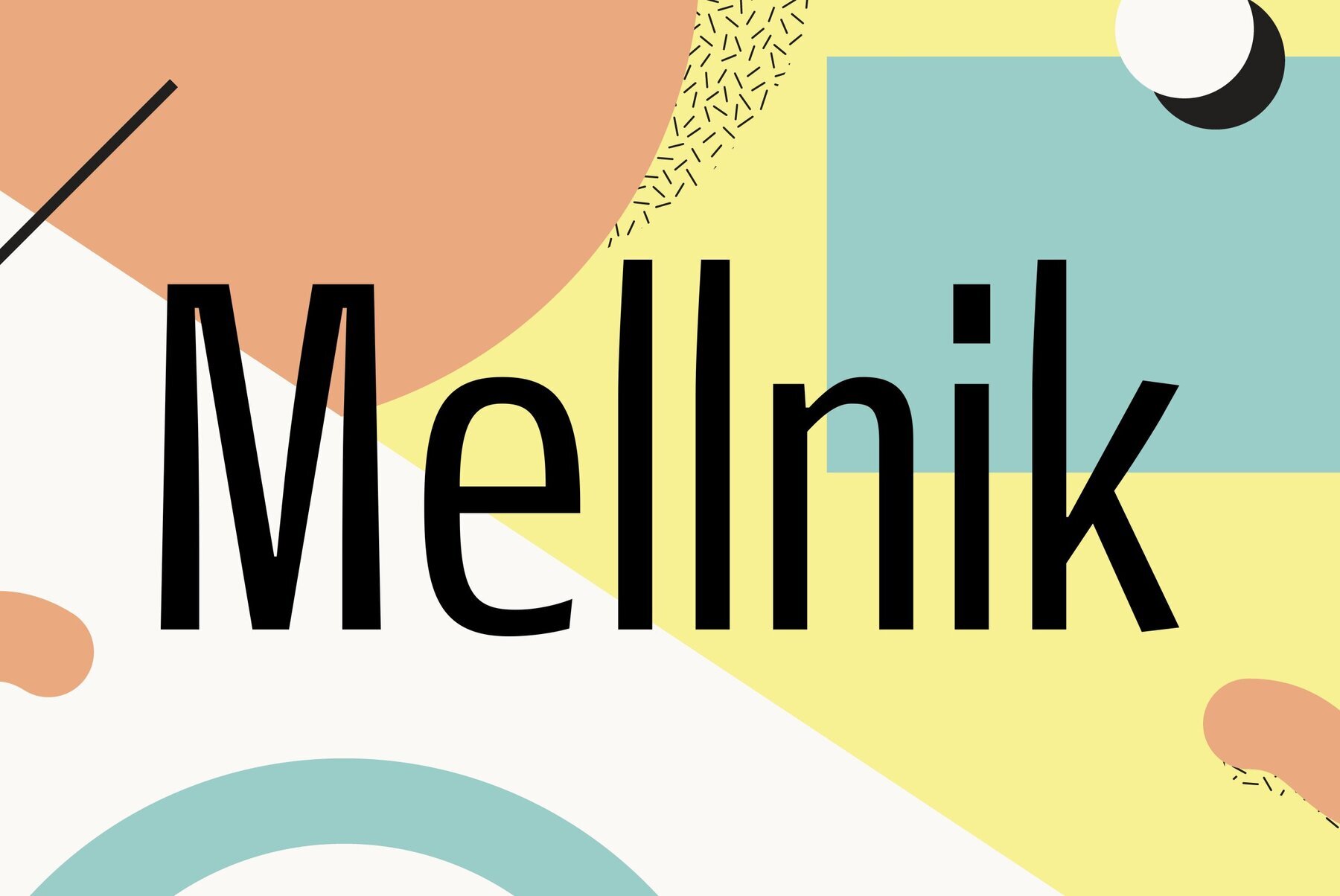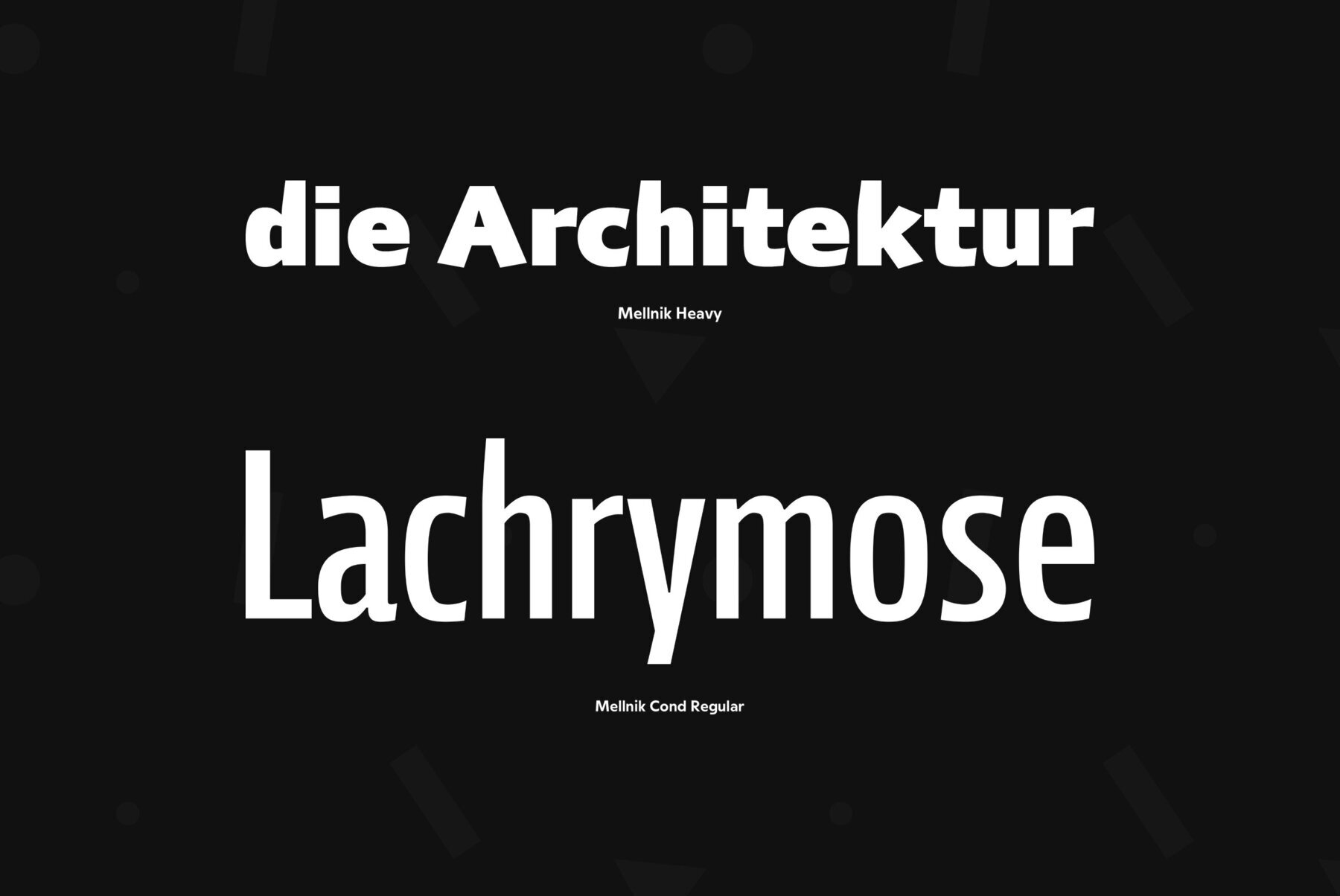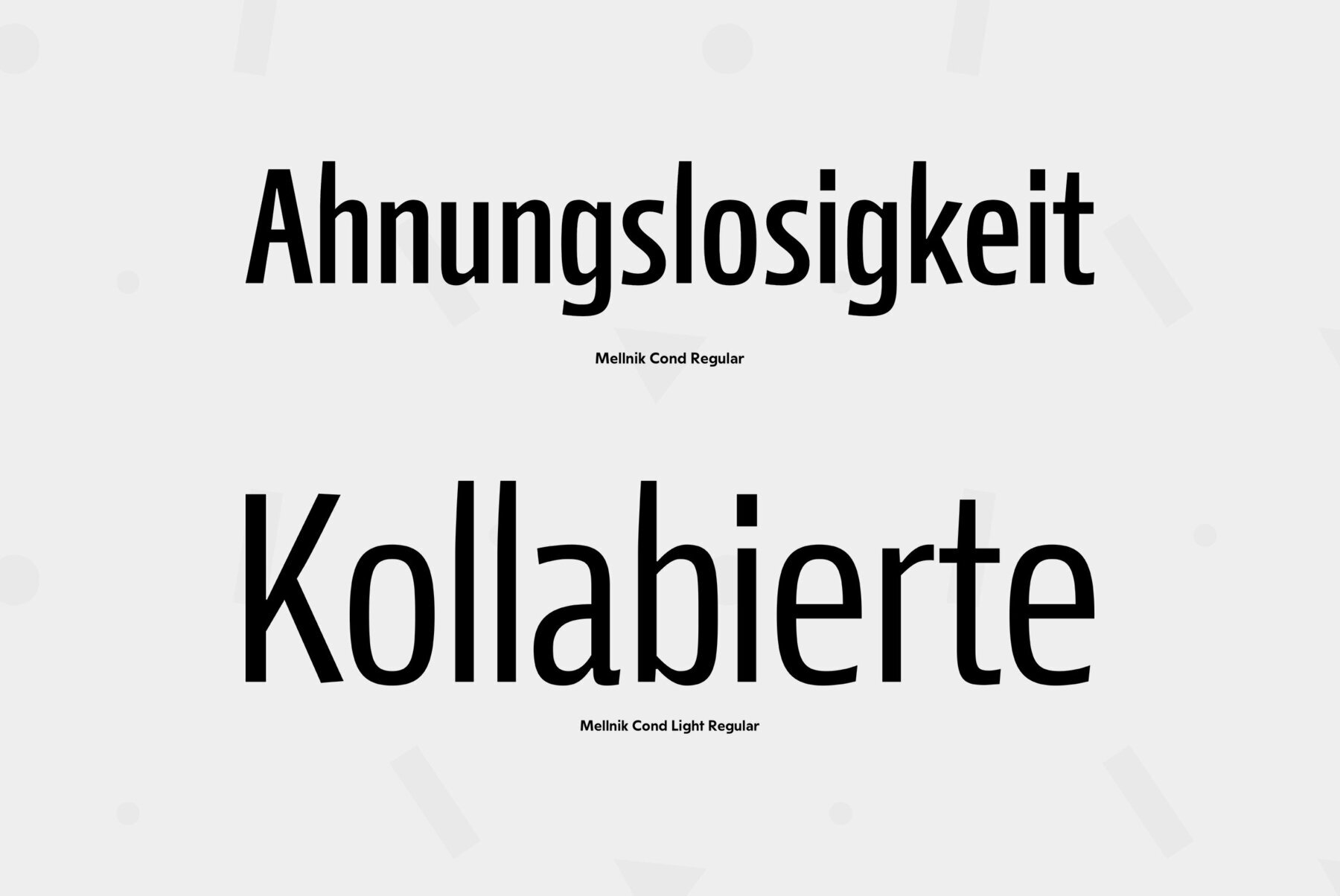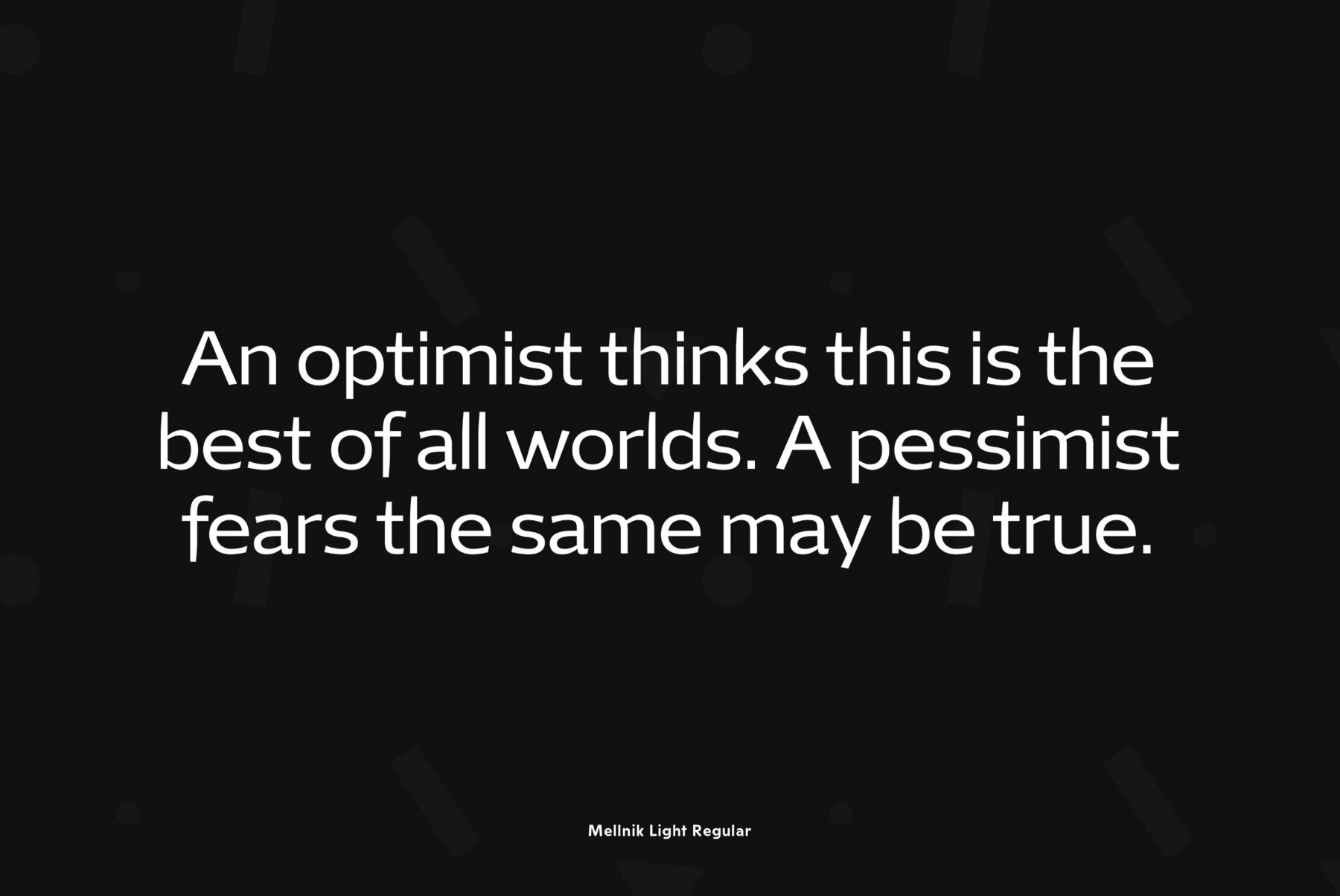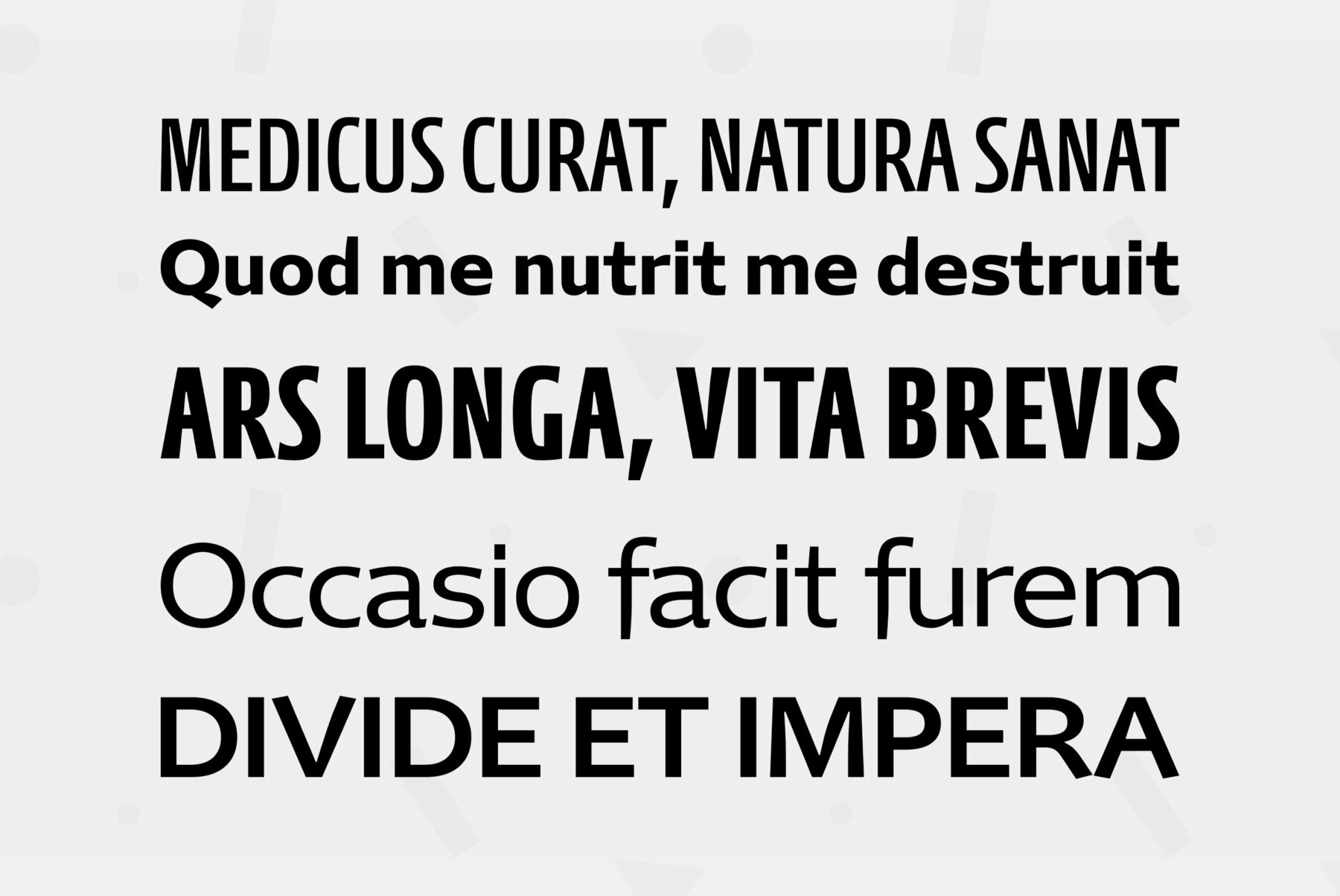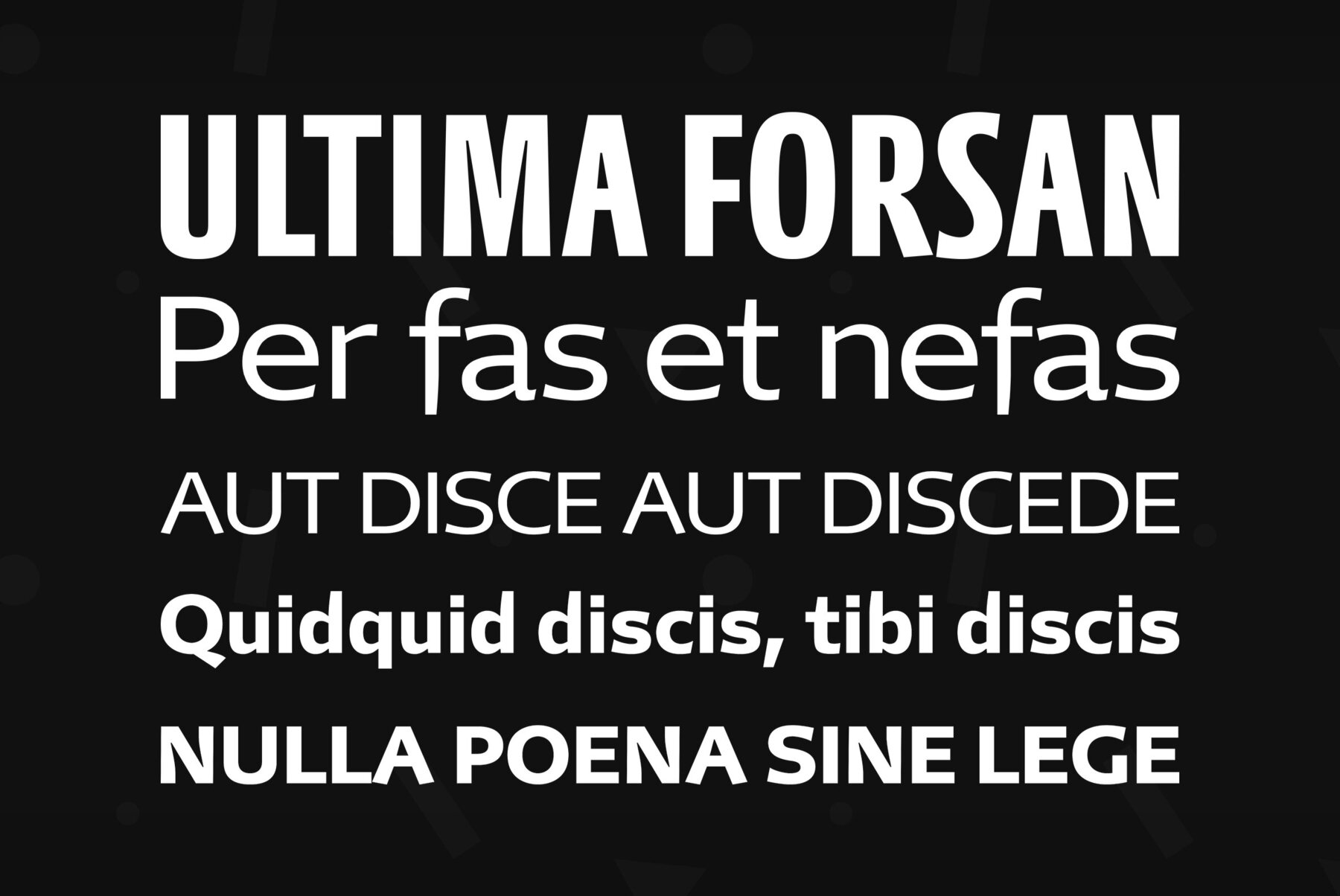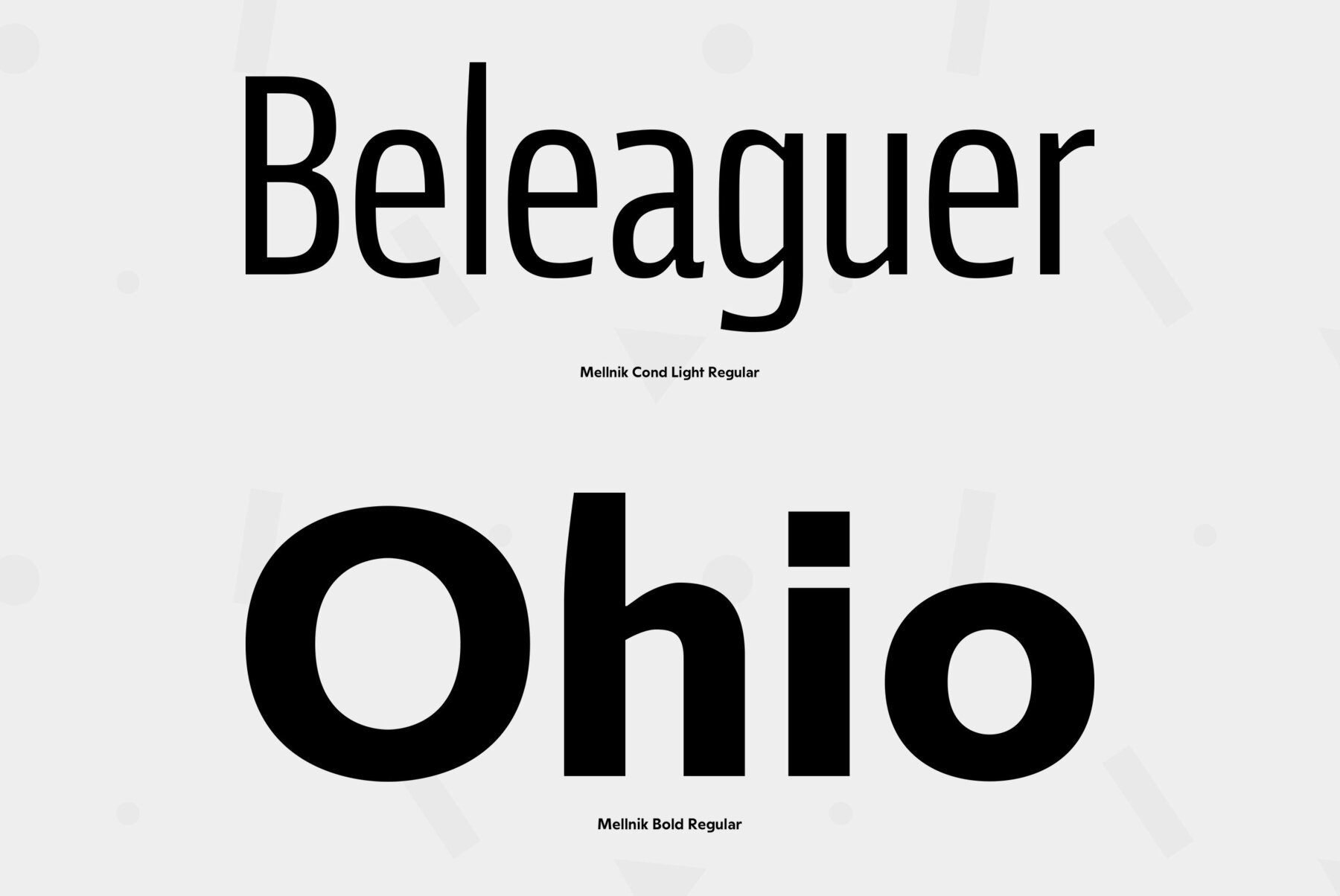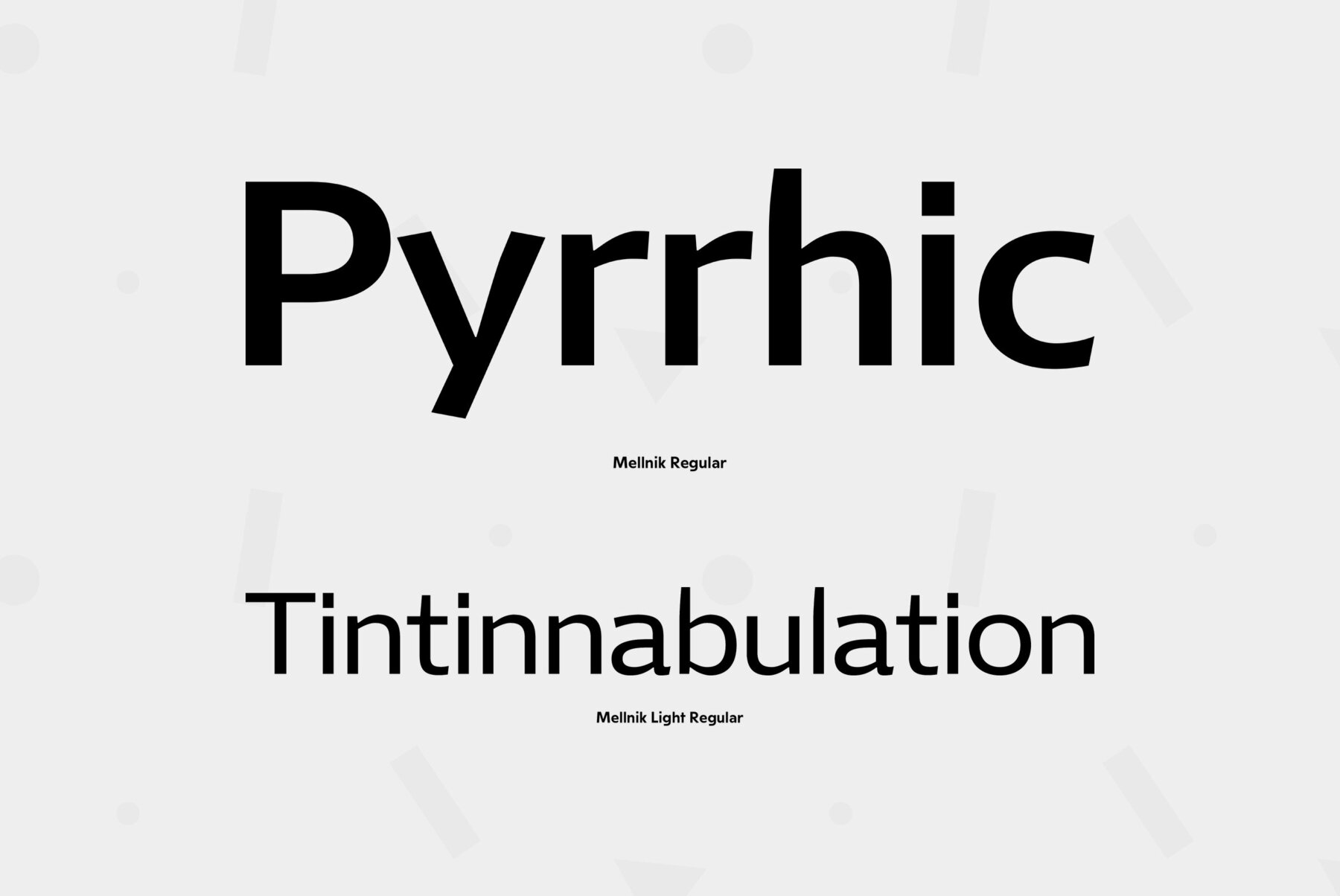
Mellnik
Mellnik is a sans serif of humanist style (in a way) that was developed by Oleg Karpinsky for ParaType in 2006. The type family contains nine styles with a number of alternate characters in each ones. For use as a text font in long text passages of advertising booklets, catalogues or magazines, as well as for accident setting. Mellnik may be also applied as a corporate typeface. Five condensed styles were added in 2007 by the same designer.